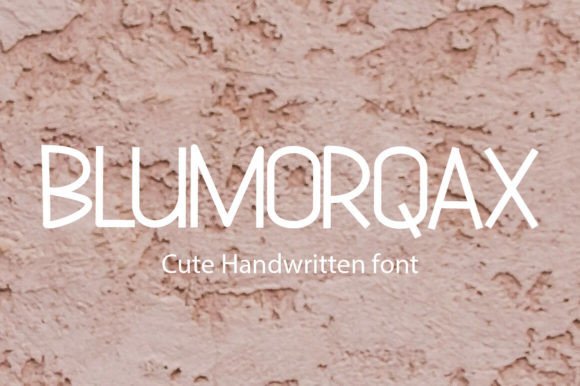
The Ultimate Guide to Blumoraxs Font: Adding Cute Vibes to Your Designs
Have you ever been in the middle of a design project, and suddenly, you’re stuck on finding the perfect font? I recall a recent experience where I was working on a logo design for a client’s new craft business. The client wanted a font that was not only cute and playful but also had a bit of an edge to it. After hours of browsing through font libraries, I stumbled upon Blumoraxs Font, and it instantly clicked. In this article, I’ll share my journey with Blumoraxs Font, its features, and how to make the most out of it in your designs.
What Makes Blumoraxs Font Special?
Blumoraxs is an all-caps handwritten font that exudes cute vibes, making it perfect for projects that require a playful and whimsical touch. One of its standout features is the abundance of ligatures, which gives it a fancy, cool, and edgy look. However, to unlock its full potential, you need to know how to activate ligatures in your design software.
An Honest Review of Blumoraxs Font
What I Love About Blumoraxs Font
- ✨ Cute and Playful Style: Blumoraxs Font is perfect for projects that require a cute and playful touch, such as logos, t-shirts, crafting, posters, branding, stickers, sublimation, and quotes.
- ✅ Ligatures Galore: The font comes with lots of ligatures that make it look fancy, cool, and edgy.
- 💡 Versatility: It can be used for a wide range of projects, from digital designs to print materials.
⚠️ One thing to note is that Blumoraxs Font requires some technical know-how to get the most out of its features, such as ligatures. If you’re new to font editing or OpenType features, it might take some time to get familiar with it.
🤔 Another limitation is that it’s an all-caps font, which might not be suitable for projects that require lowercase text.
The Backstory of Blumoraxs Font
Blumoraxs Font was designed with the intention of creating a font that was both cute and edgy. The designer aimed to craft a font that would be perfect for creative projects that require a playful touch. Although the designer’s background is fictional, the inspiration behind Blumoraxs Font is real – to bring a unique and stylish font to the design community.
| Author | gunaloe12 |
Q: What is Blumoraxs Font?
A: Blumoraxs Font is an all-caps handwritten font with cute vibes, perfect for projects that require a playful and whimsical touch.
Q: Is Blumoraxs Font suitable for body text?
A: While Blumoraxs Font is perfect for headings and titles, it might not be the best choice for body text due to its decorative nature and all-caps design.